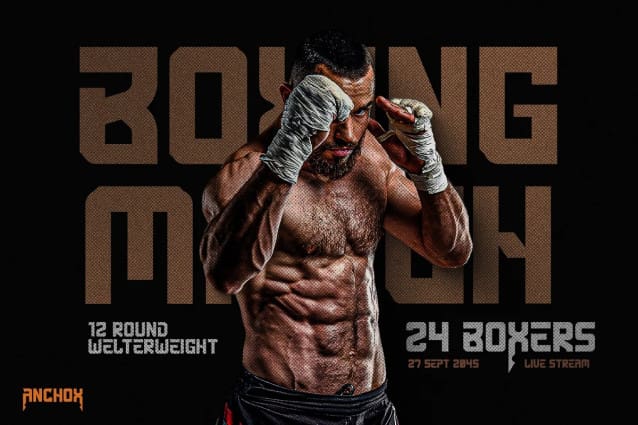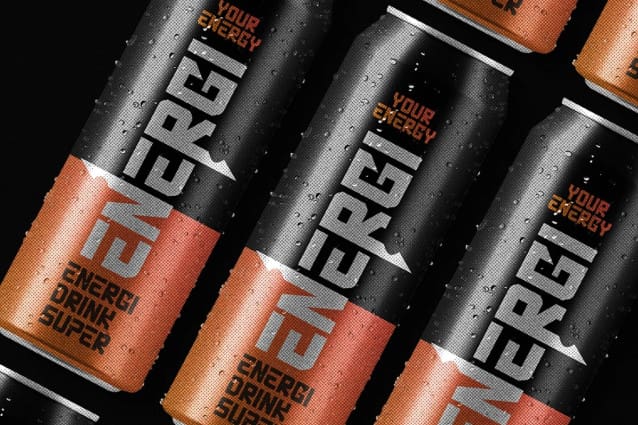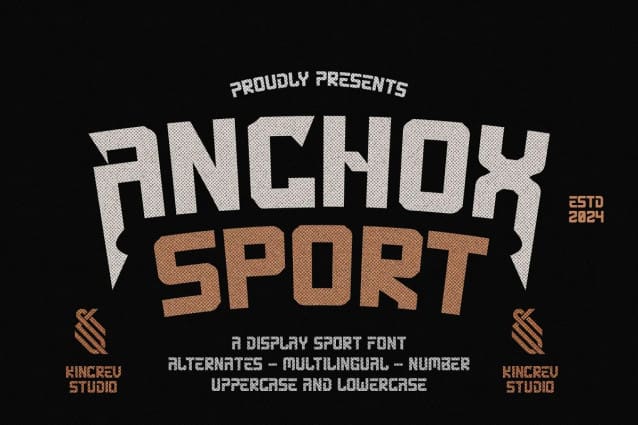
Anchox Sport Font
Anchox Sport Font, a Sport Font is font for you to get your designs with stylist, bold and sporty look. It is made in Regular & Stylistic Alternates which are easy on the eyes and nice to look at, and easy to read. This font is designed to bring your brandings to life and add a touch of sporty modern, bold, fun and style.